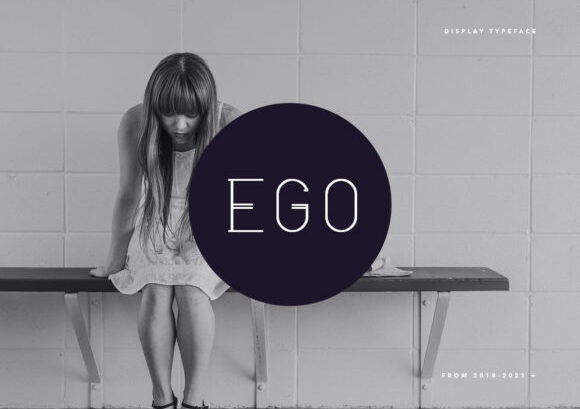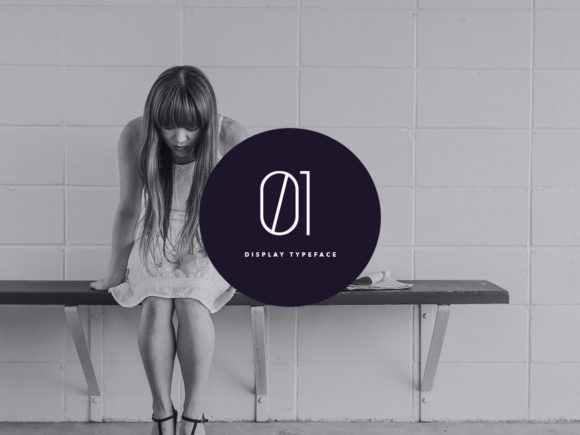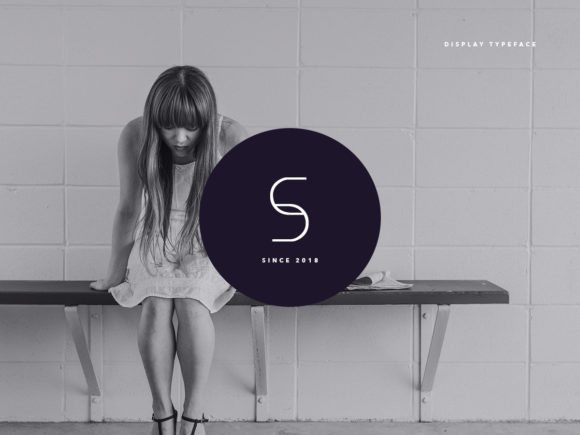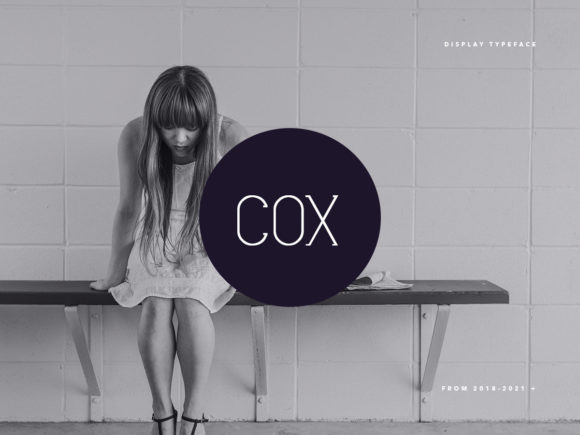
Ego Font
EGO FONT SPECIMEN
Ego is a modern slab serif font. With tall and slim letters, this typeface inspires gracefulness and charm. Use it for your most exquisite projects and designs for a wonderful effect!